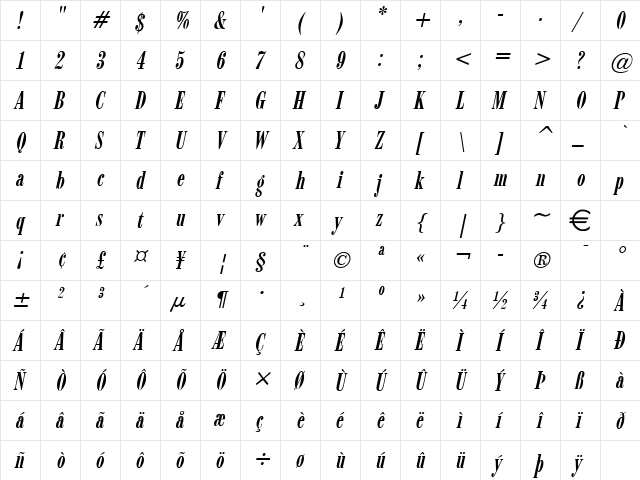
Upprint Italic
Design Context for Upprint Typeface
Upprint is a composed and adaptable typeface that performs quietly and consistently across a wide range of design contexts. The dynamic lean of this cut emphasises speed and emphasis in any layout.
Pro Tip: Try Upprint for annotation and caption copy alongside an upright companion — the contrast in angle creates a dynamic but ordered typographic system.